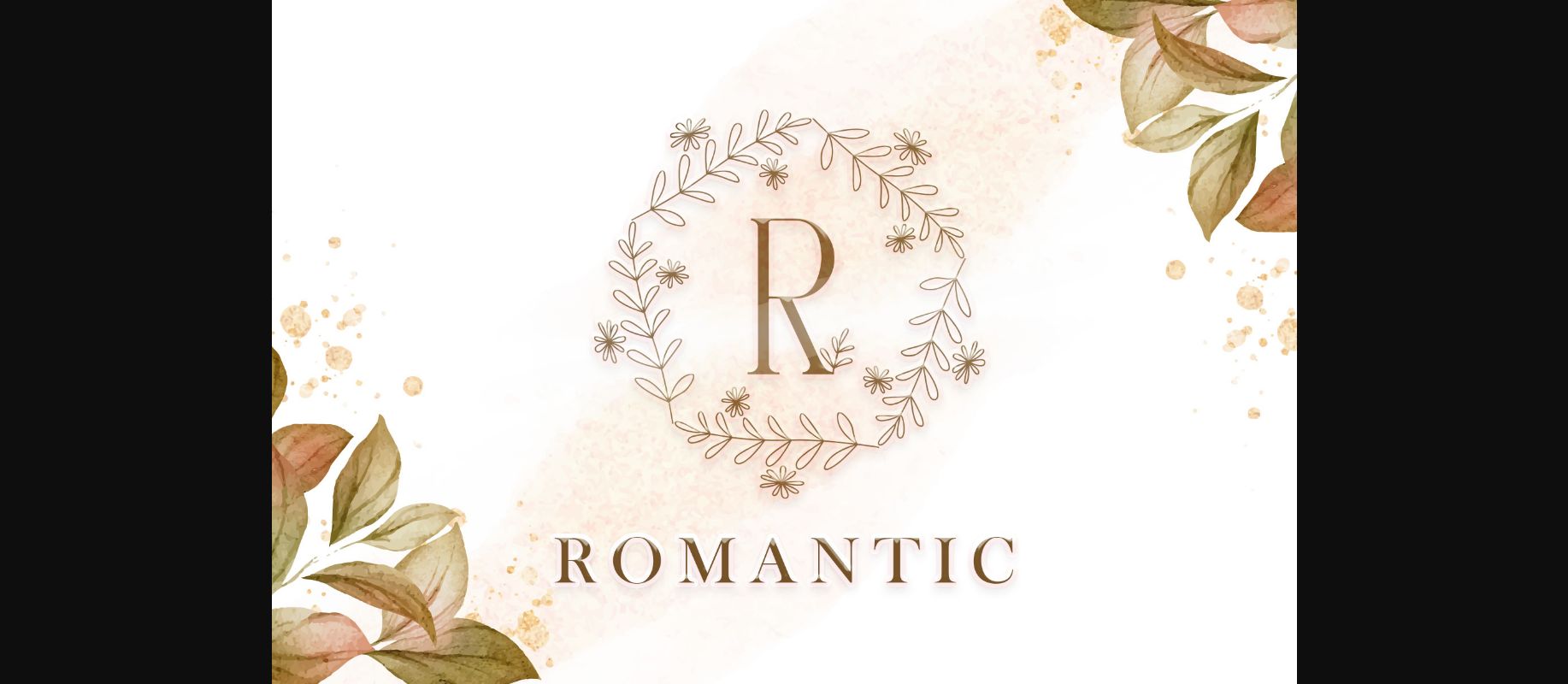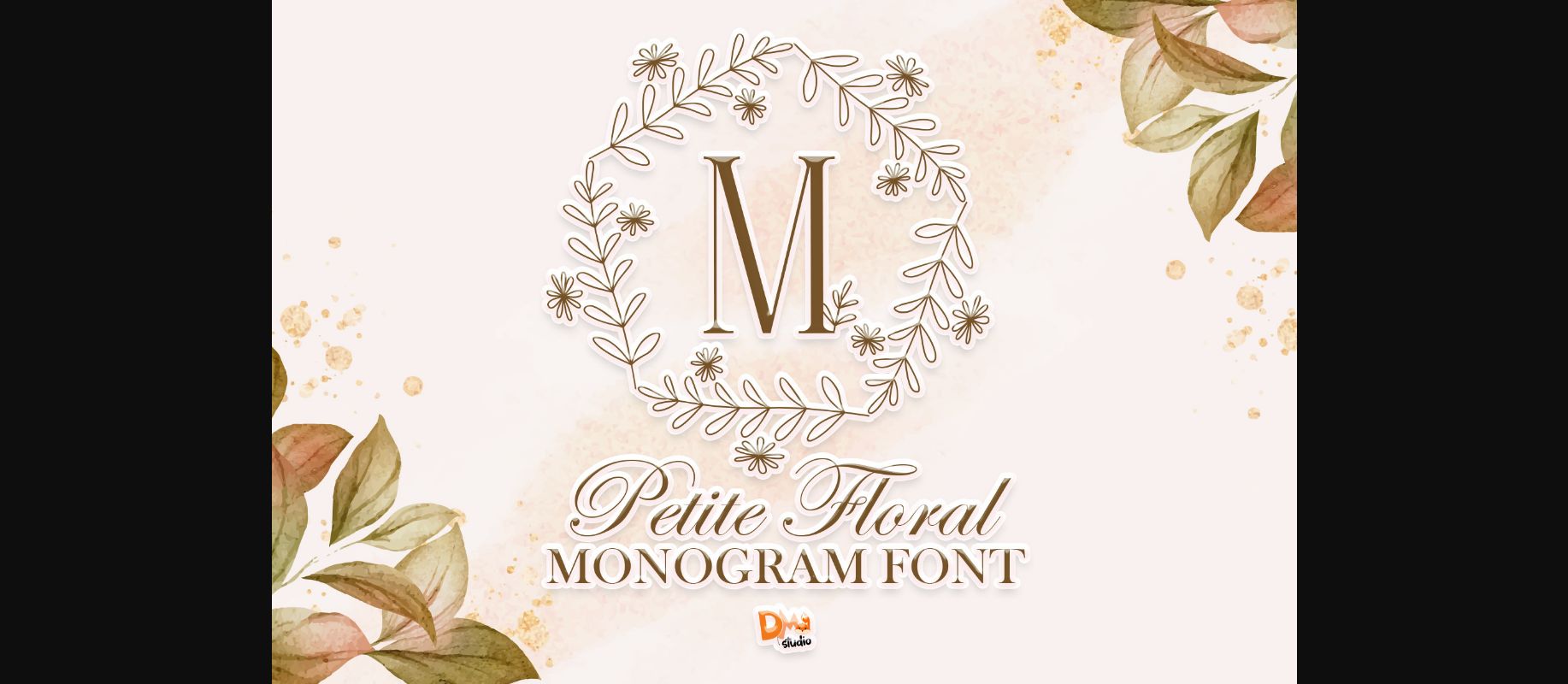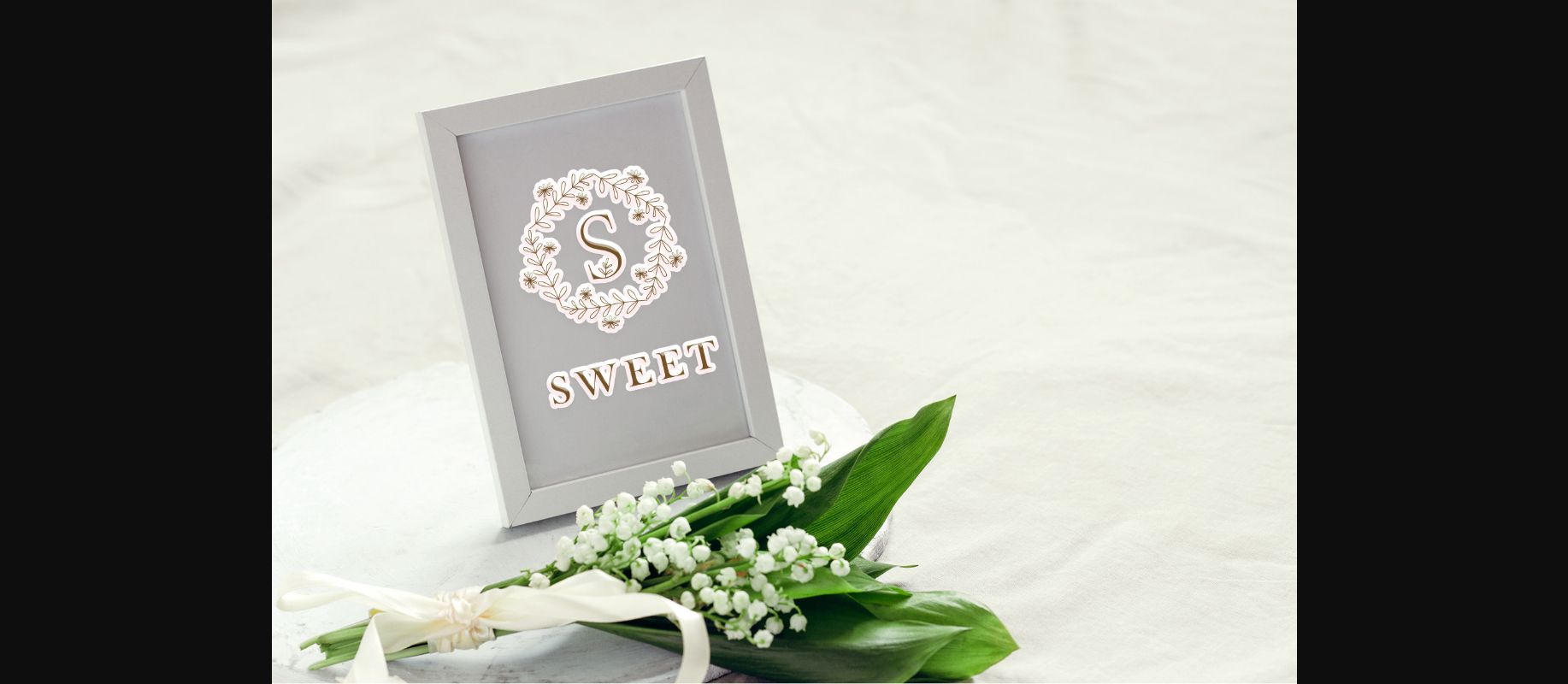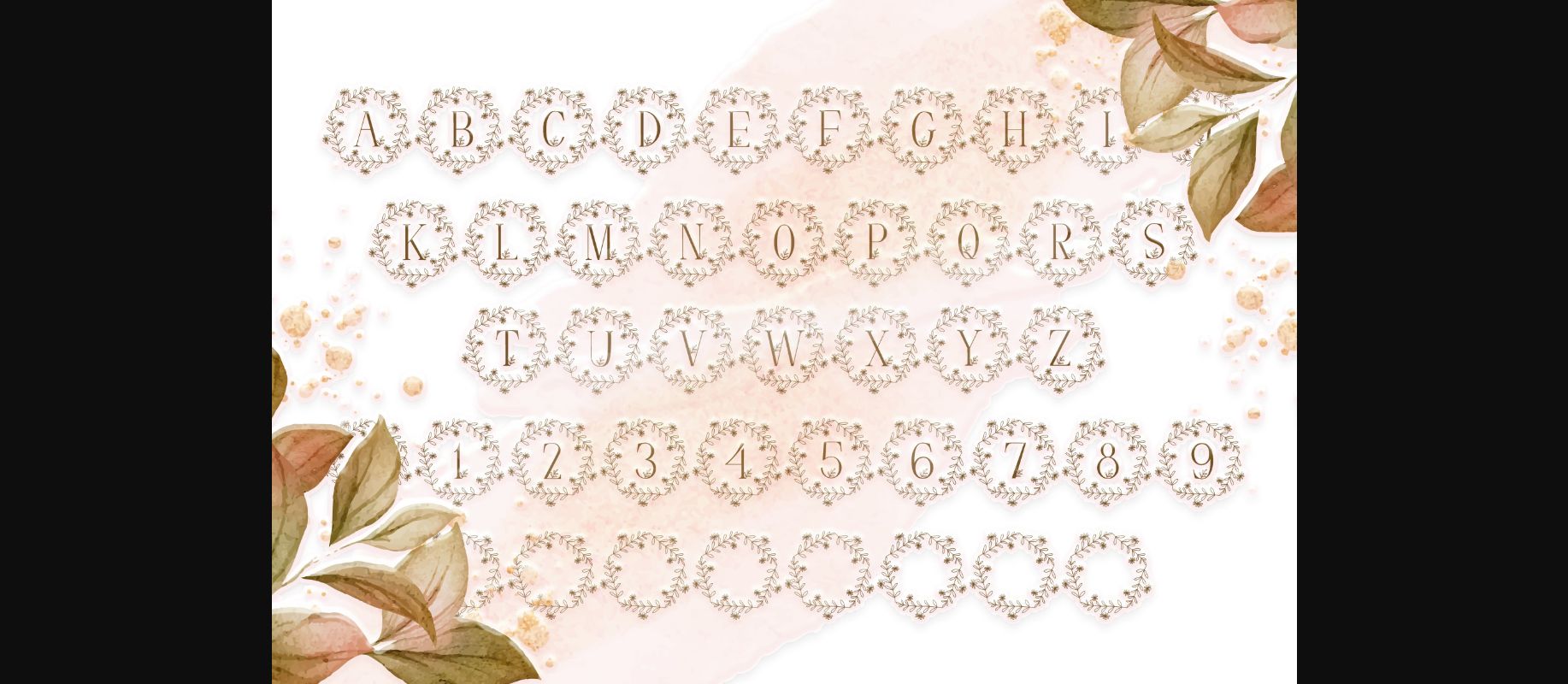
Petite Floral Monogram Font
About Petite Floral Monogram Font
Petite Floral Monogram is a dainty and unique decorative font. Add this romantic and lovely looking font to each of your love letters, wedding invitations or favorite design ideas, and you will be astounded by the outcome.